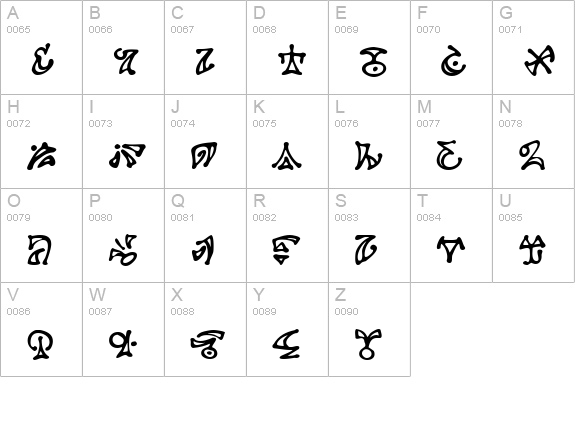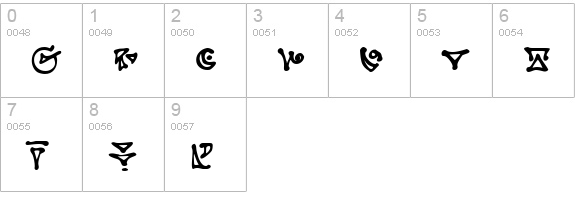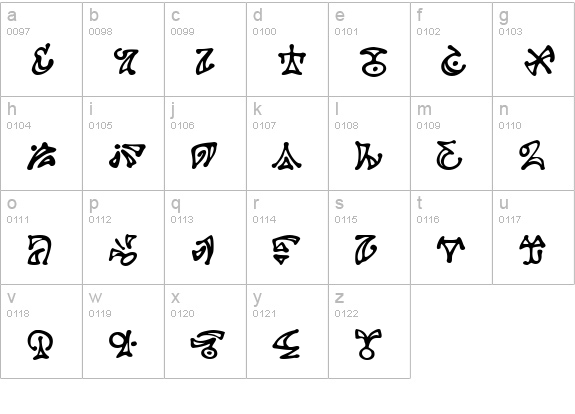
DarkArts BB Font Details
DarkArts BB font is a hauntingly beautiful typeface that exudes an air of mystery and magic. Its bold, Gothic-inspired letterforms are perfect for creating spooky designs and adding a touch of darkness to your projects. This font is ideal for Halloween-themed creations, horror movie posters, and fantasy book covers. The unique detailing and intricate design of DarkArts BB font make it stand out from the crowd and capture the attention of viewers. Its dark and edgy aesthetic is sure to make a powerful statement in any design. Best of all, DarkArts BB font is completely free to download at FontsMarket.com. So unleash your creativity and add a touch of dark magic to your projects with this stunning font today!